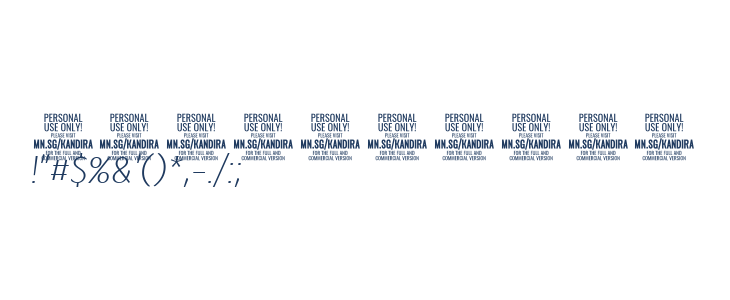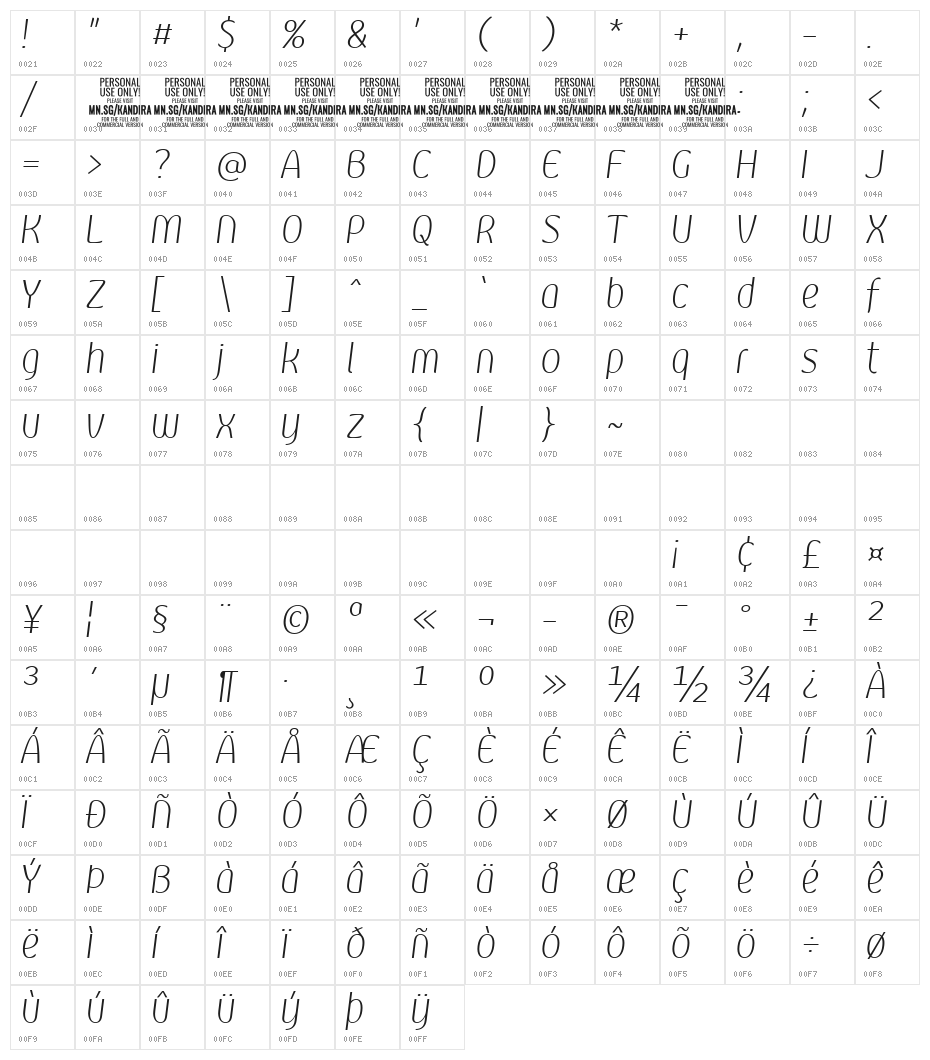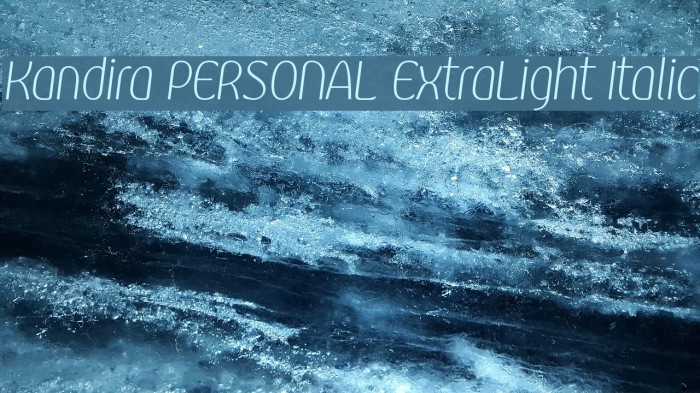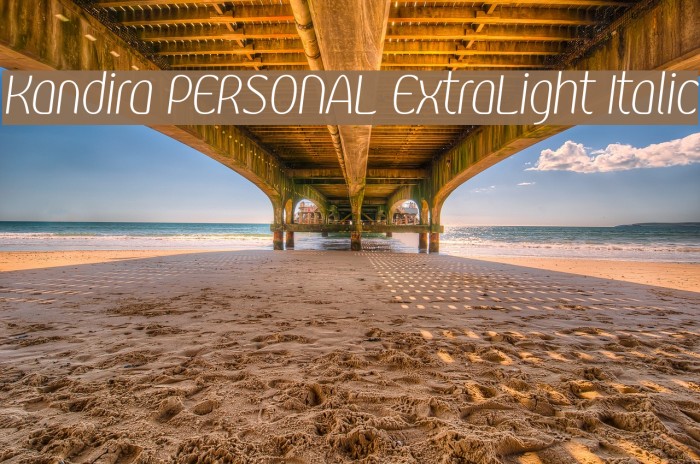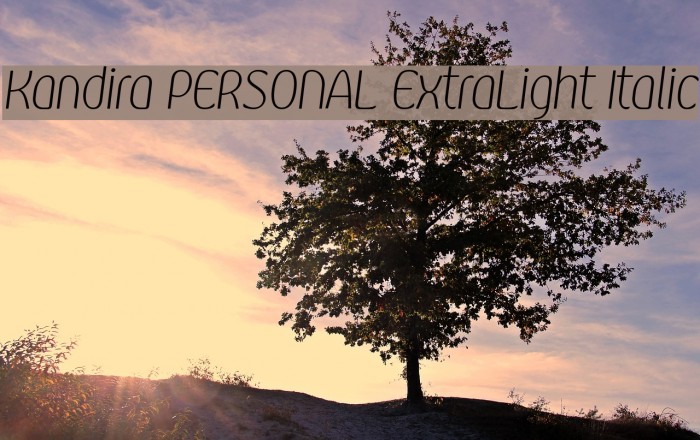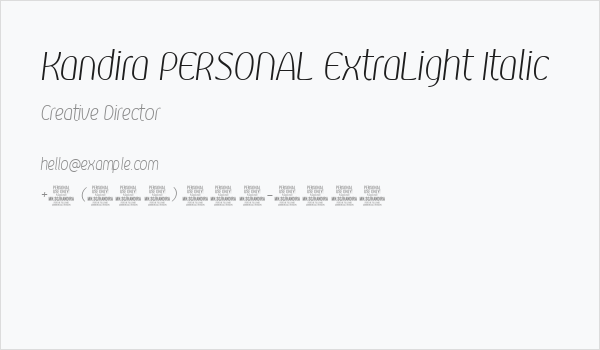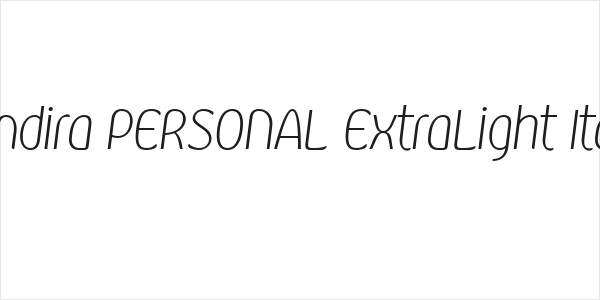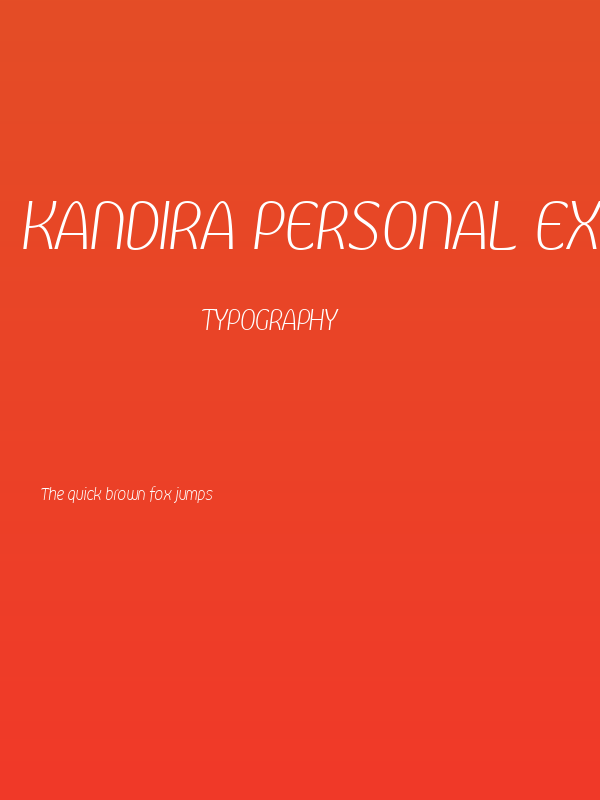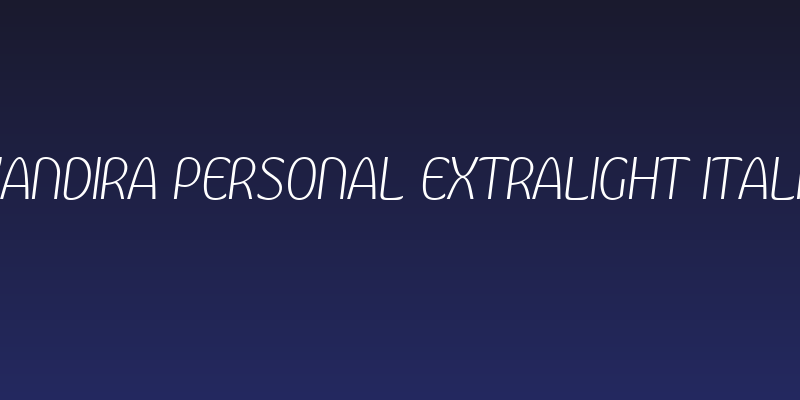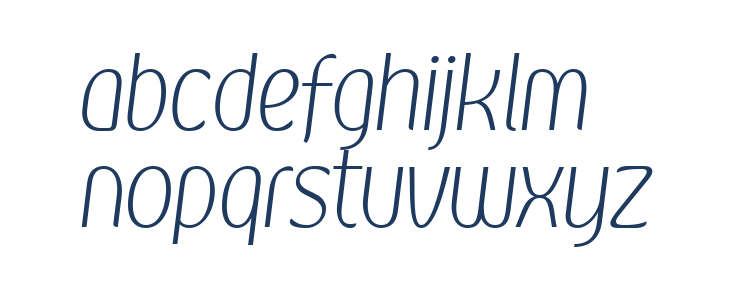
Kandira PERSONAL ExtraLight Italic Font
Kandira PERSONAL ExtraLight Italic Description
This font features a sleek and modern design with a distinct italic style. The characters are elongated and slightly slanted, giving a sense of motion and elegance. The strokes are thin and consistent, contributing to an overall light and airy appearance. The uppercase and lowercase letters maintain a uniform height, while the numerals and special characters blend seamlessly with the alphabet. This font's clean lines and minimalistic approach make it versatile for various design applications.
Use CaseHeadlines, Logos, Invitations
Proposed ProjectsIdeal for fashion magazines, modern branding, elegant invitations, and minimalist web design.